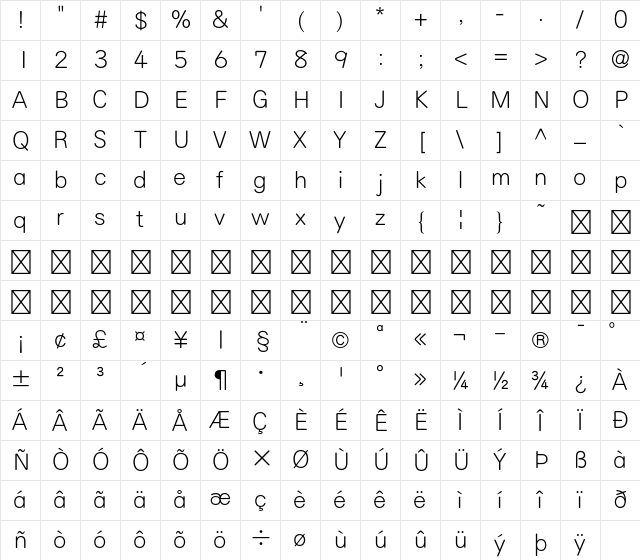
Complete FOT-Utrillo Pro M glyph index. Displaying only characters natively supported by FOT-Utrillo Pro M font.
FOT-Utrillo Pro is a composed and adaptable typeface that performs quietly and consistently across a wide range of design contexts.